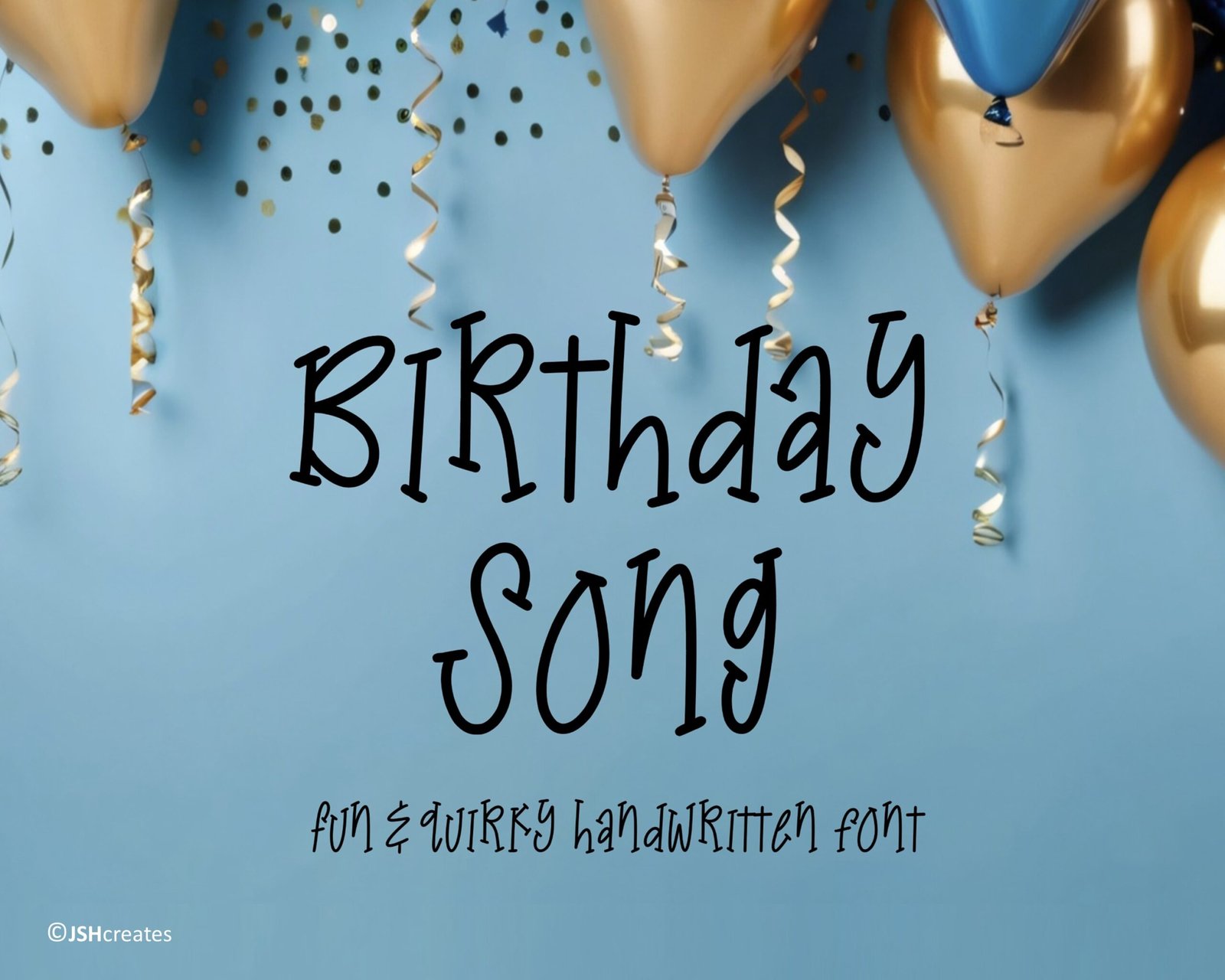
Birthday Song Font
Handwritten fun and quirky font. “Birthday Song”. Perfect for advertising and display purposes, including banners, book covers, shirts, posters, logos and much more!